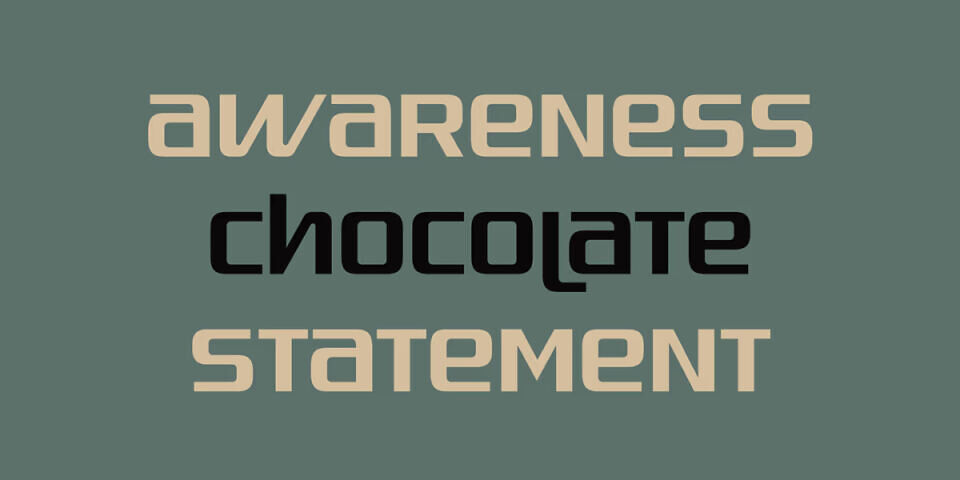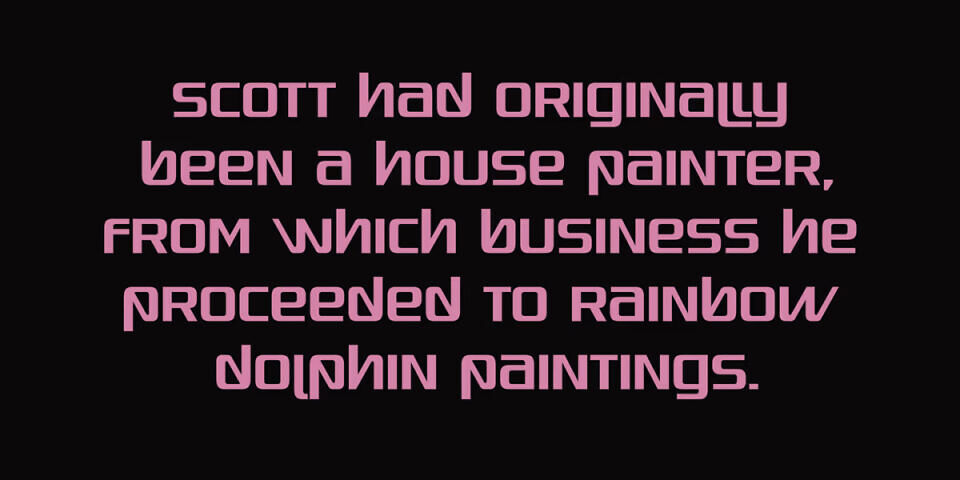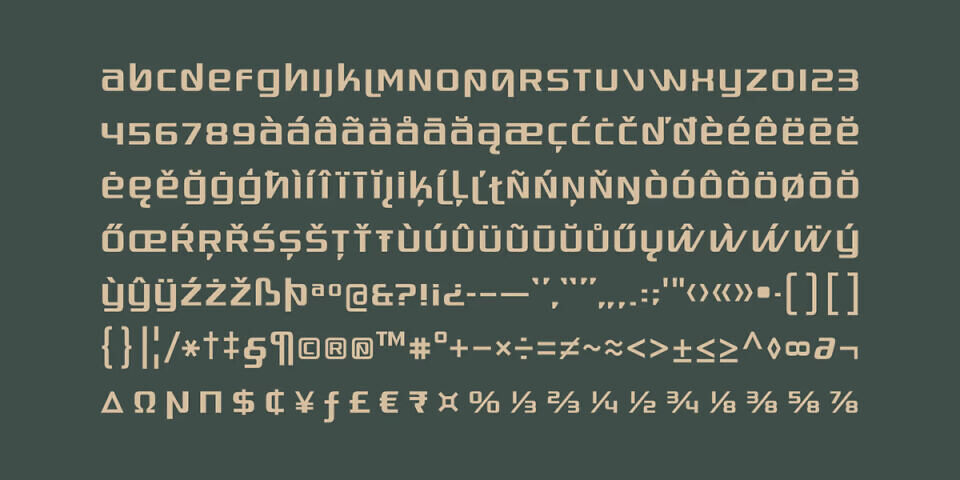
Quadaptor Font
Designed by Ray Larabie of Typodermic Fonts, Quadaptor is a striking retro-techno typeface inspired by the 1970s Dynaco audio equipment logo. This high-impact display font features bold, blocky geometric shapes with a distinct futuristic edge.
Its wide, squared-off characters and clean lines make it perfect for sci-fi branding, gaming interfaces, and vintage tech-inspired posters. Available as a free commercial-use font (CC0), Quadaptor offers a nostalgic yet ultramodern aesthetic that ensures your headers and logos stand out with mechanical precision.
Designed by: Typodermic Fonts